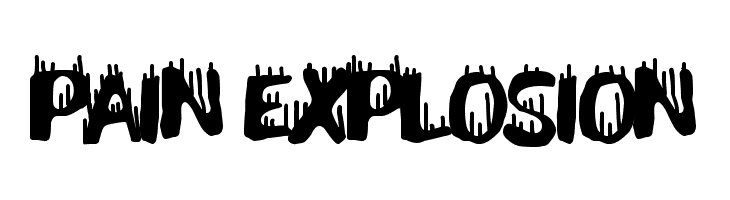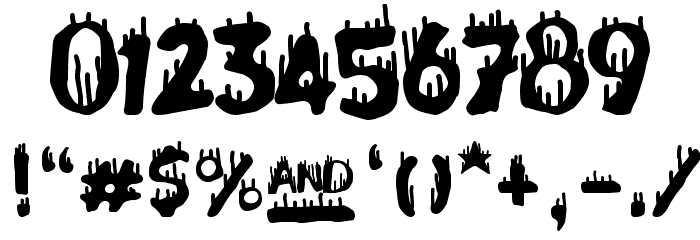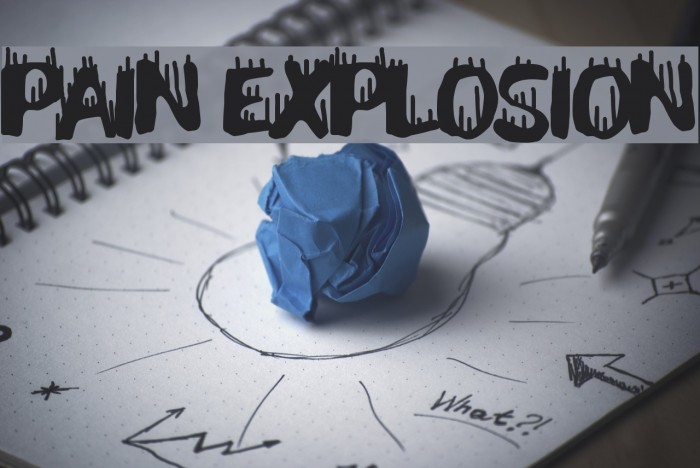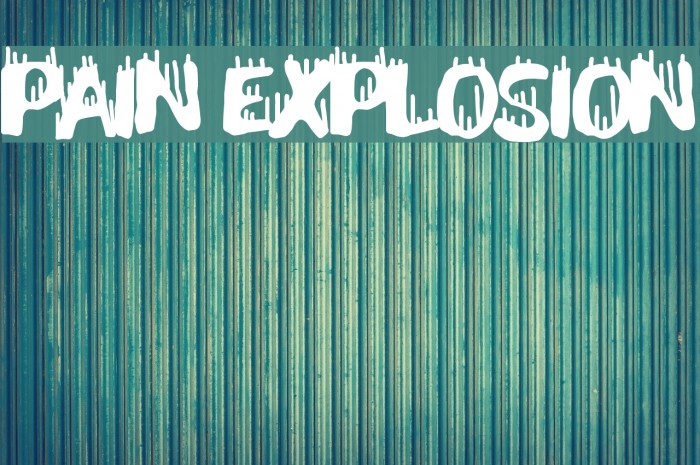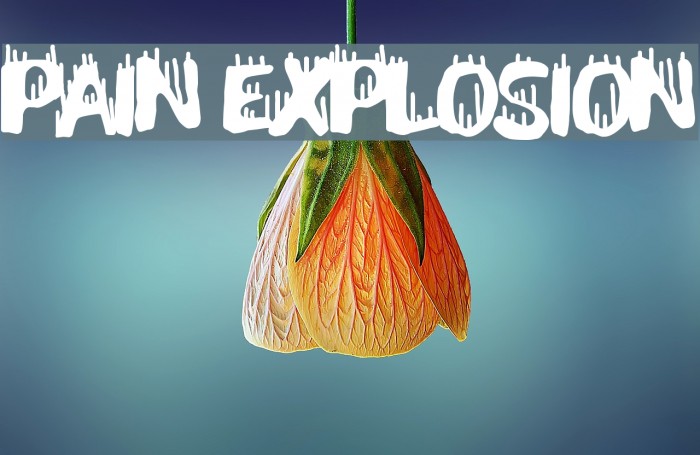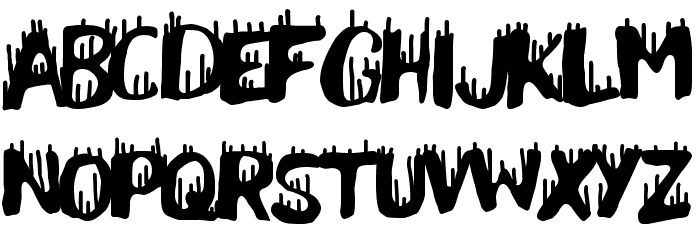
Pain Explosion Font
Pain Explosion Description
This font features a bold, dripping effect that gives it a dramatic and intense appearance. The characters appear as if they are melting or oozing, with thick, uneven strokes that create a sense of chaos and movement. The uppercase and lowercase letters maintain a consistent style, with the drips varying in length and direction, adding to the dynamic feel. The numbers and special characters follow the same design, ensuring a cohesive look across all elements. This font is highly decorative and makes a strong visual impact, ideal for projects that require a bold statement.
A bold, dripping font with a dramatic and intense appearance from Horror fonts.
- Proposed Projects: Ideal for horror-themed posters, Halloween invitations, edgy branding, or any project needing a bold, dramatic statement.